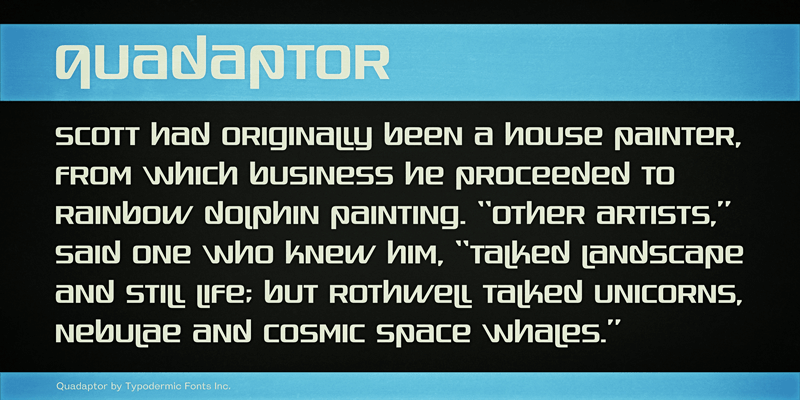
Quadaptor is a retro, techno font inspired by the font used in the logo for Dynaco audio equipment in the 1970s. This font includes a license that allows free commercial use: sometimes referred to as a desktop license. This allows you to install the font on a computer and use it to create posters, web graphics, game graphics, t-shirts, videos, signs, logos and more. Read the license agreement for details. If you'd like to embed this font in an app, ebook, on the web or anything that's not covered by the desktop license agreement, visit the link below. You'll find distributors who offer different types of licenses or you can contact me for help. http://typodermicfonts.com/quadaptor/ |